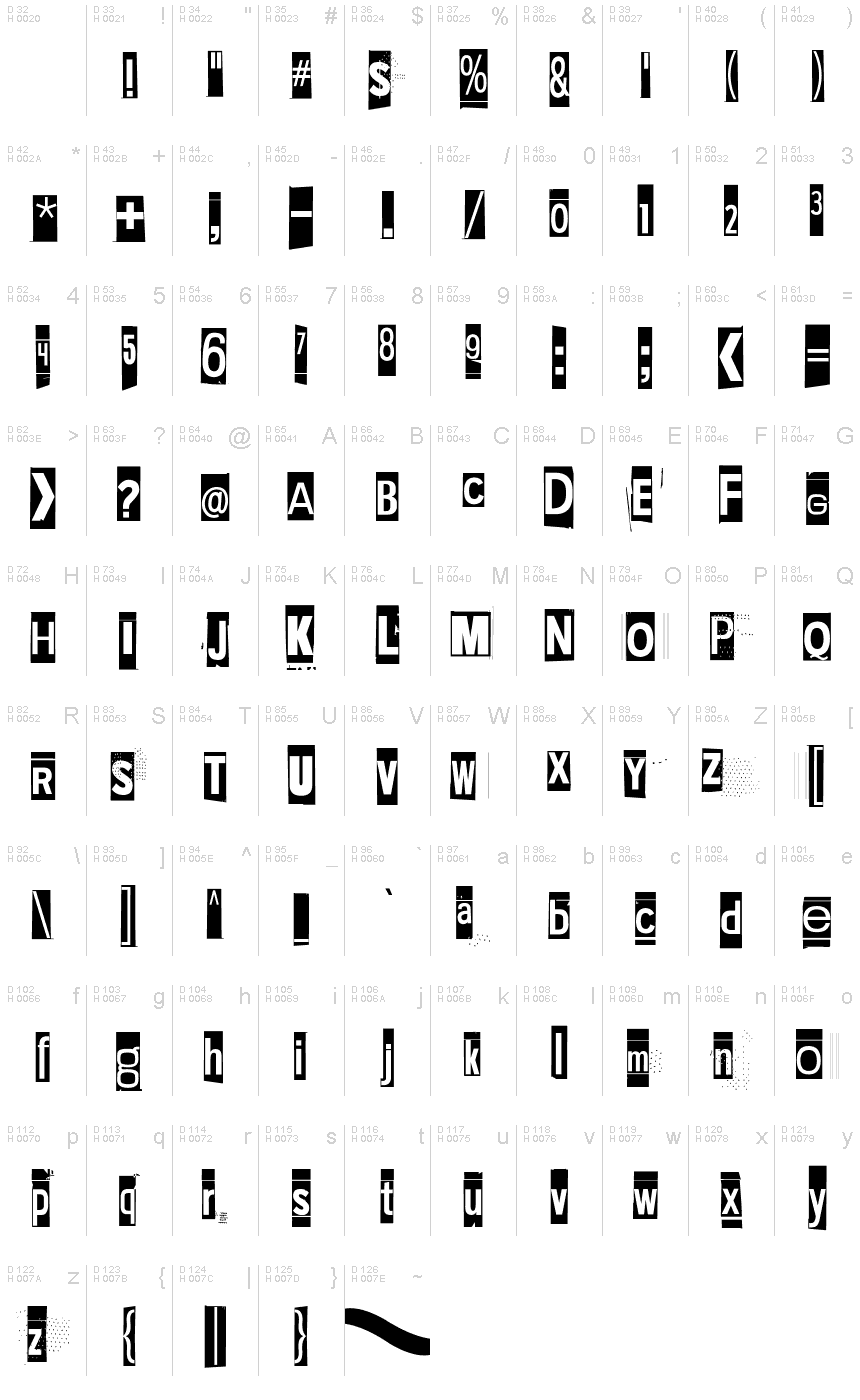
Extraoin Zhurdlyou Silence
Extraoin Zhurdlyou Silence, a negative display font designed by junkohanhero, is an excellent choice for projects that require a bold and striking design. The distorted style of this semi-bold font adds a unique flair to any project, making it perfect for branding materials, product packaging, and even album covers. With its sleek and modern appearance, this font can also be used for web designs, social media graphics, and advertisements. Its narrow width allows it to fit into tight spaces while still maintaining its legibility. Overall, Extraoin Zhurdlyou Silence is an ideal choice for any project that calls for a bold and edgy look.